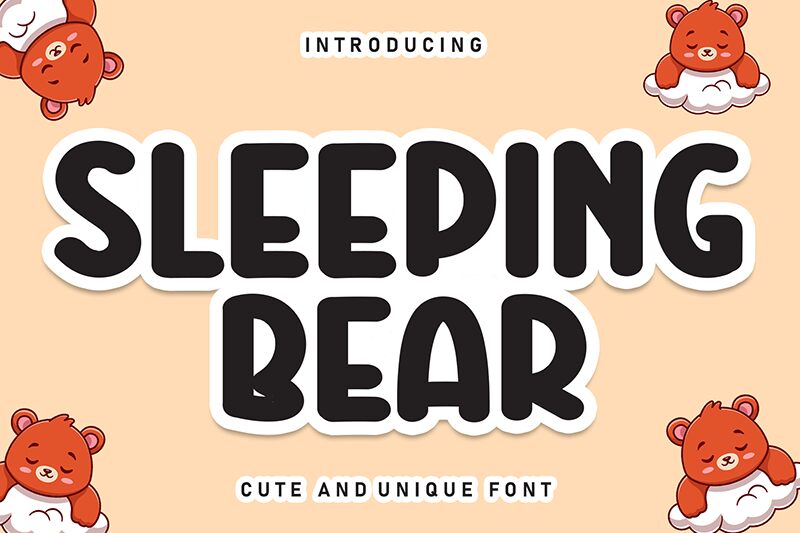
Sleeping Bear
Sleeping Bear font by Andi Moz is a bold brush typeface with a friendly aesthetic and warm presence. Its rounded appearance and retro vibe make for an inviting look that captures attention in seconds. The charming design of this well-balanced free brush font makes it an ideal choice to be part of texts that highly need to stand out.
Sleeping Bear can be used for labels, music covers, video games, branding designs, product packaging or labels, magazines (digital and printed), book covers, T-shirt designs, branding projects (logos included), postcards or invites. This amazing digital resource is as great for professional projects as it is for personal ones!